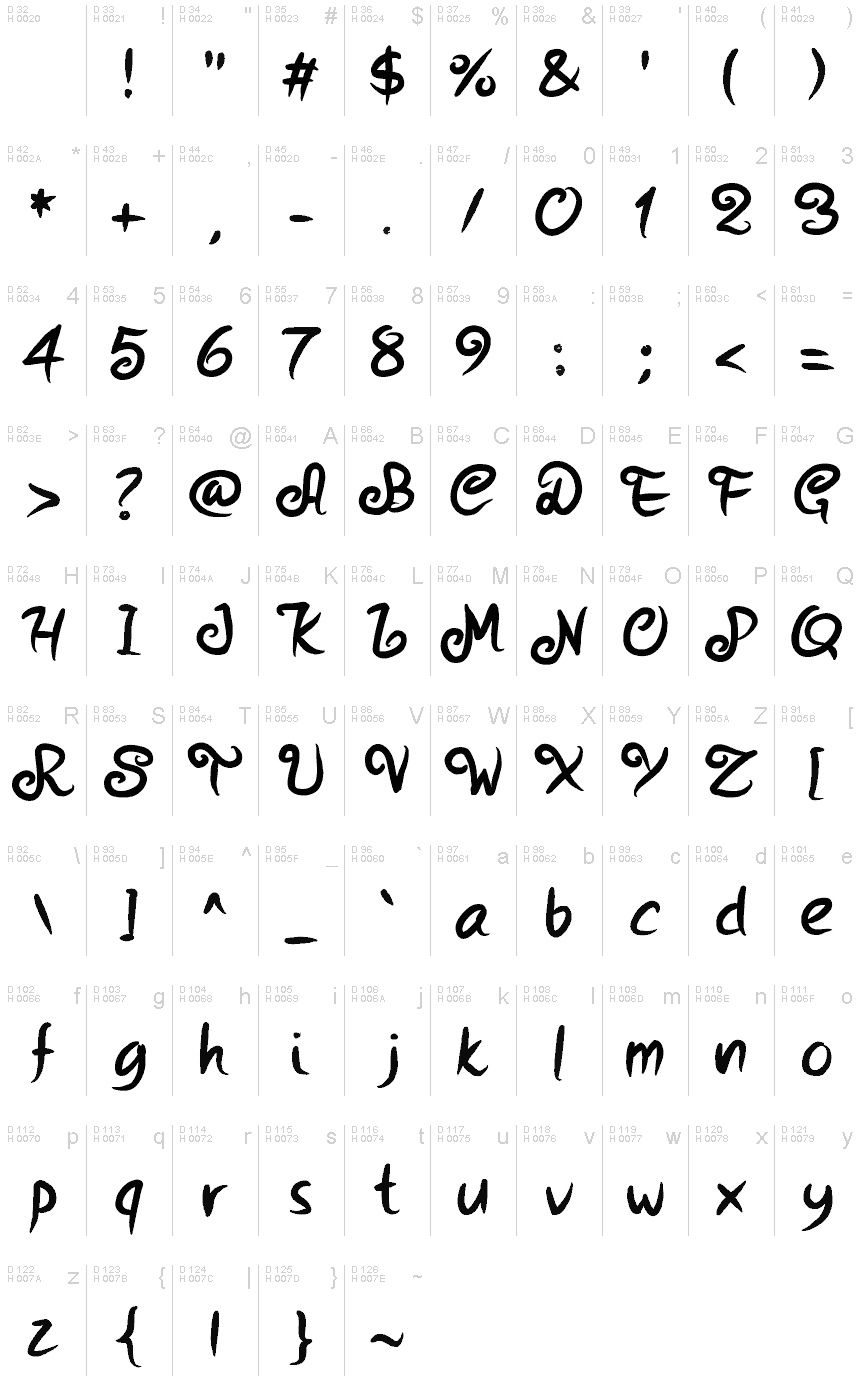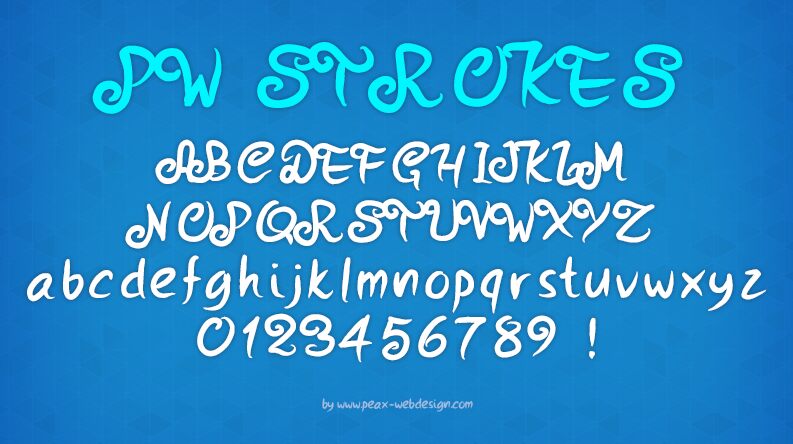
PWStrokes
PW Strokes is a captivating display font that exudes a delightfully whimsical charm. Its curly, looping strokes create a sense of movement and fluidity, lending a playful and dynamic quality to any design. The font's distinctive aesthetics make it well-suited for a variety of applications, from eye-catching headlines and logotypes to invitations and branding. Its versatility allows designers to infuse their work with a touch of elegance and sophistication, whether crafting engaging social media graphics or designing striking editorial layouts.
The font's unique character lends itself beautifully to projects where a touch of personality and flair is desired, such as fashion-forward brand identities, artisanal product packaging, or enchanting event materials. PW Strokes invites designers to explore the intersections of form and function, creating visually captivating pieces that leave a lasting impression on the audience.